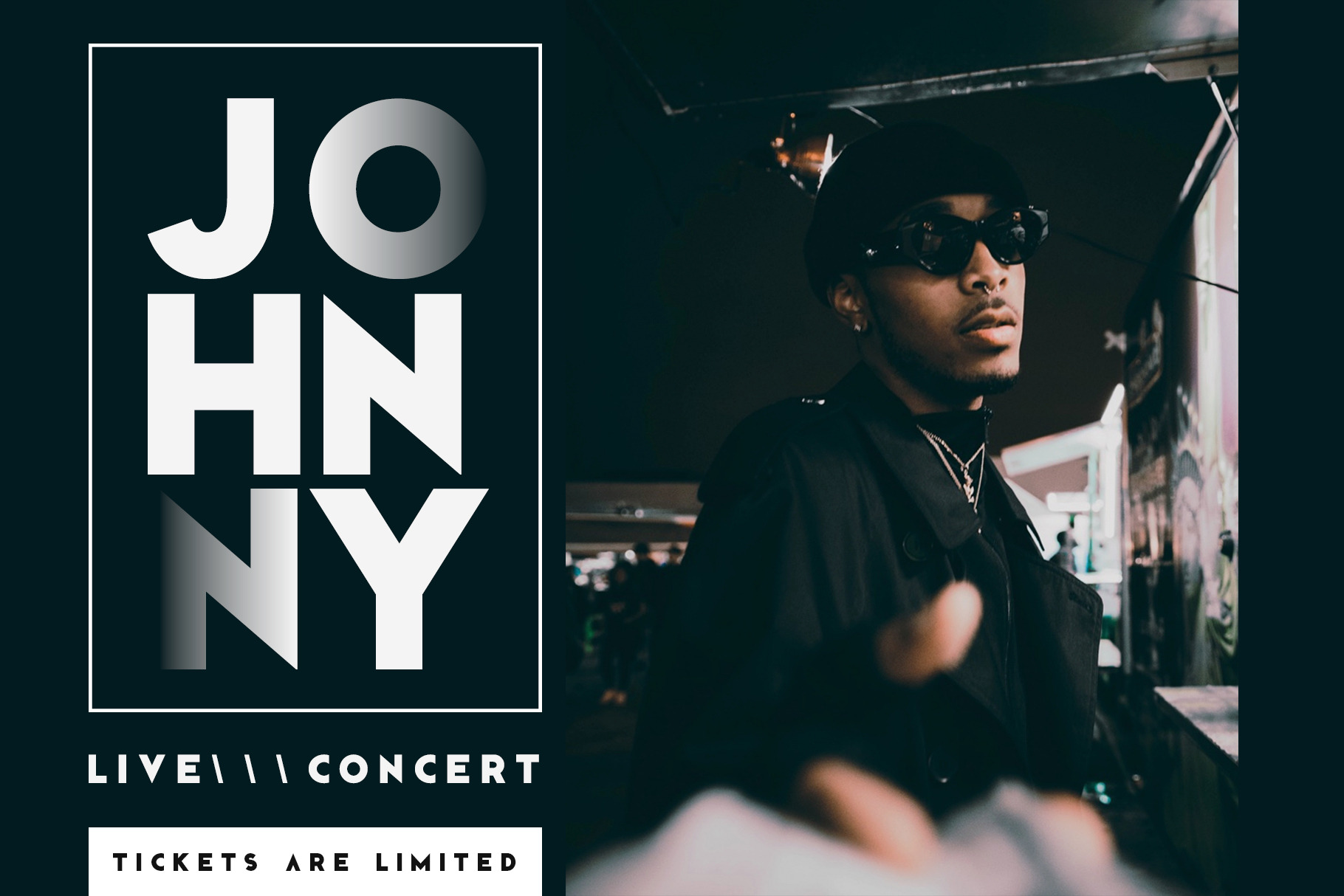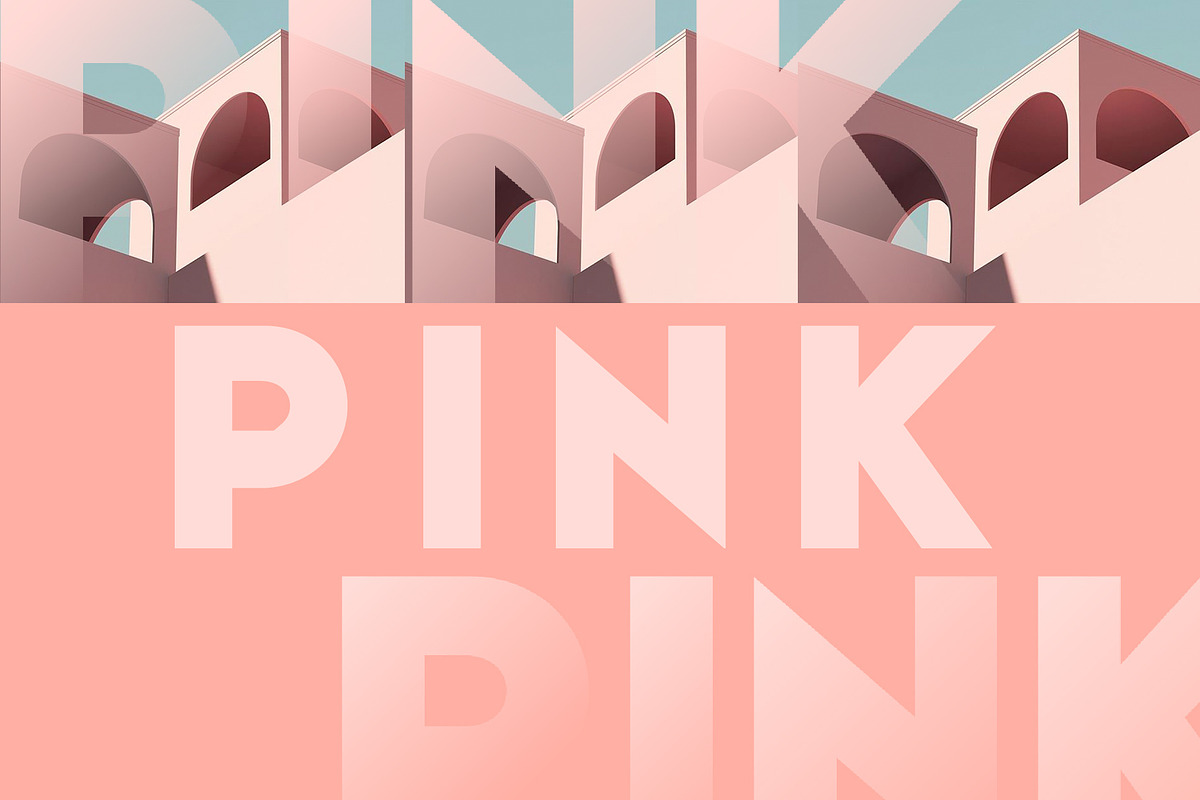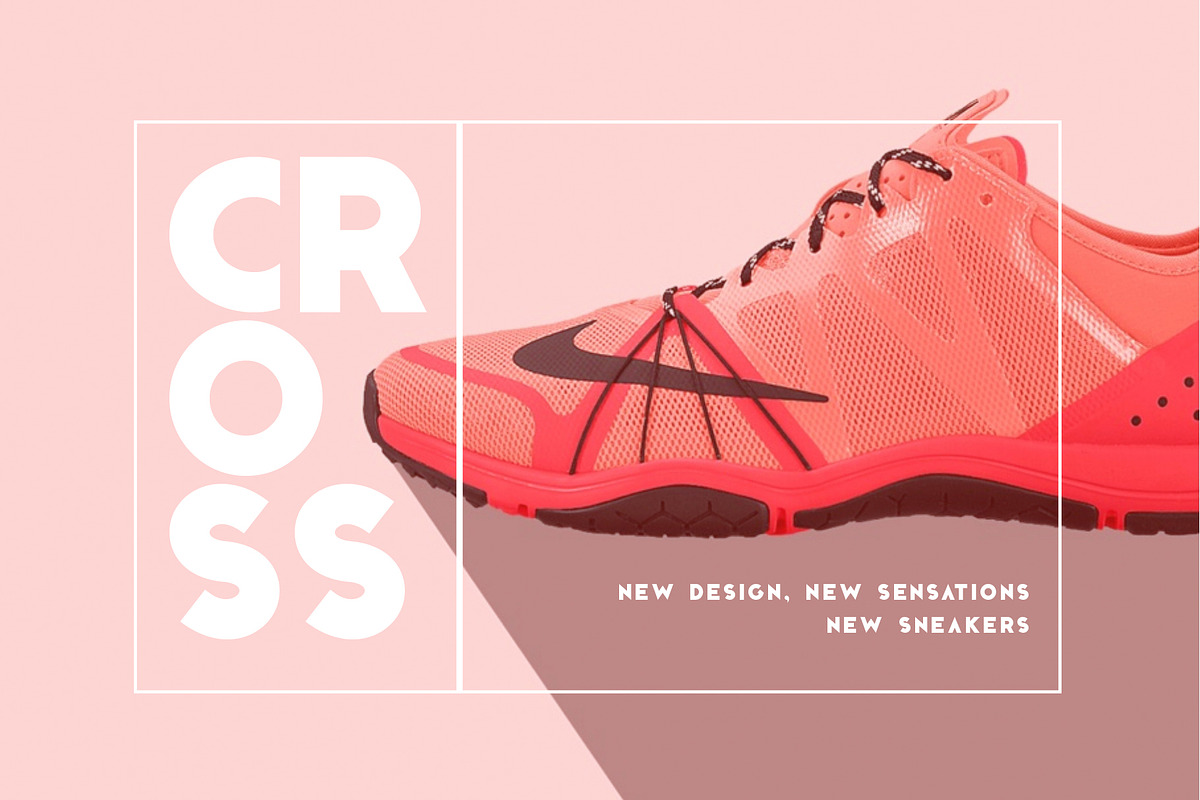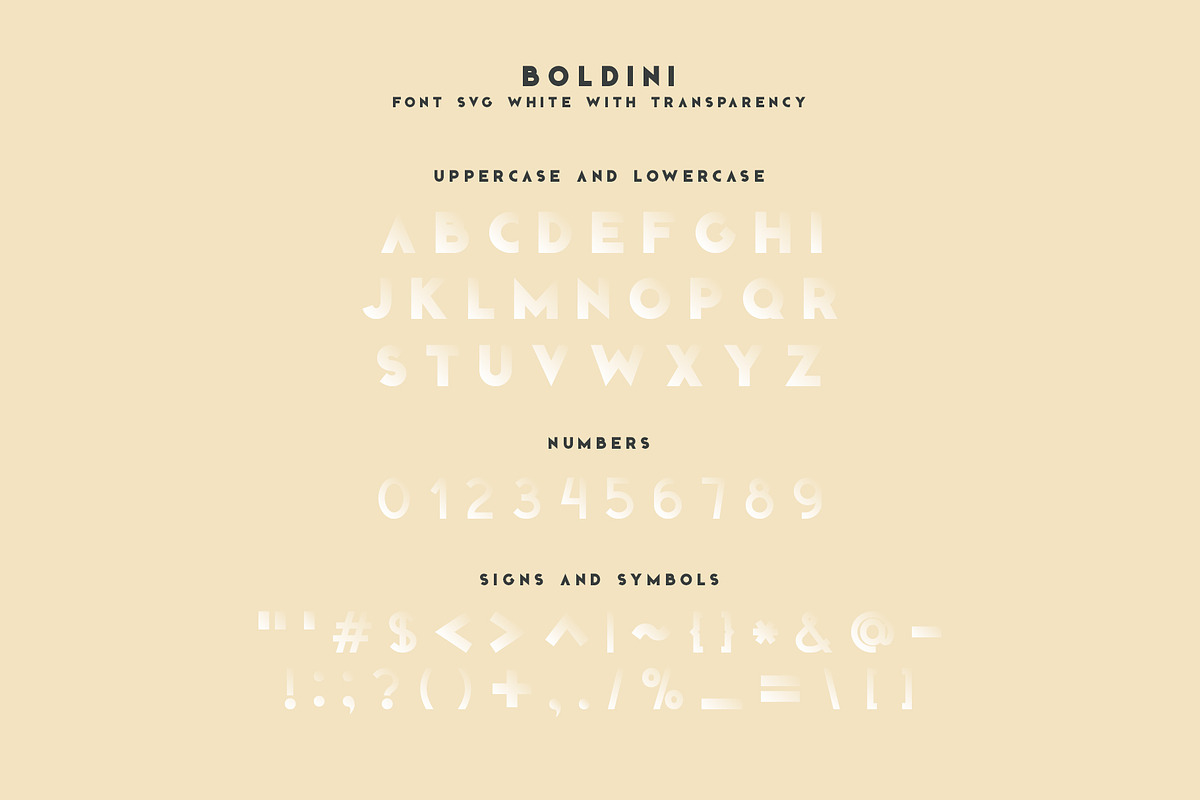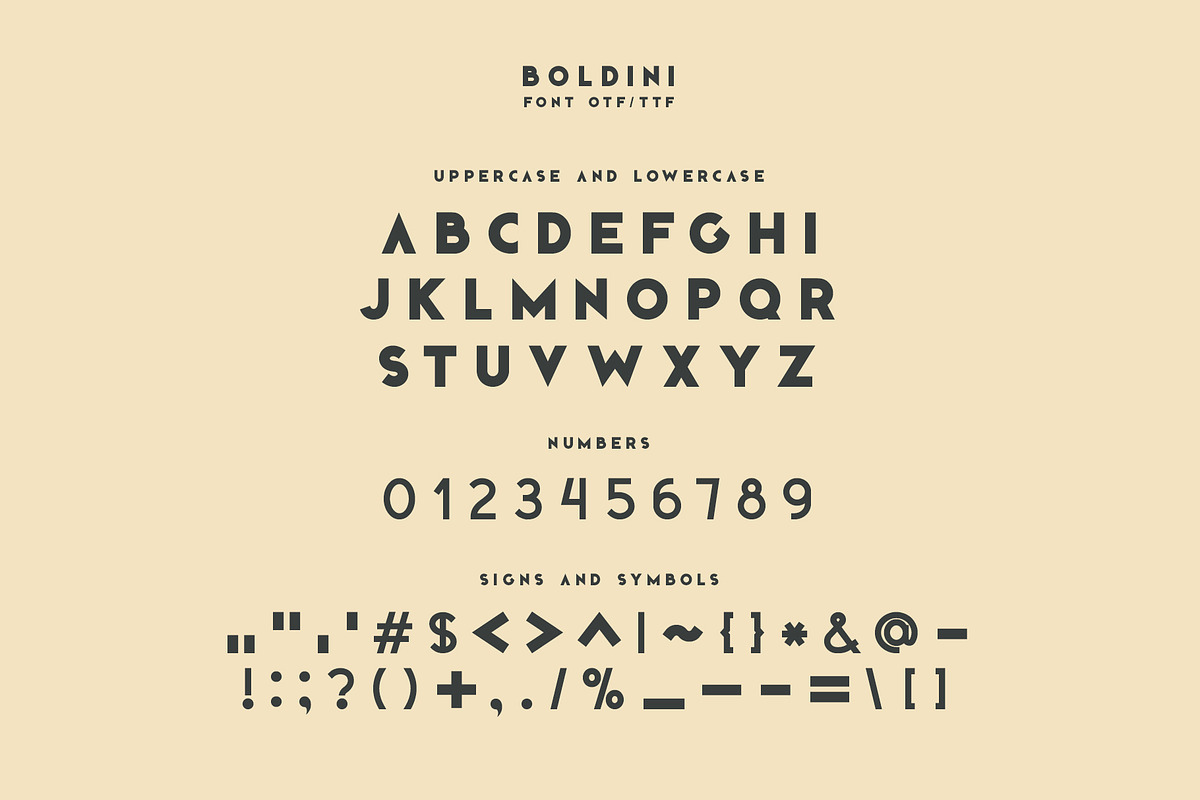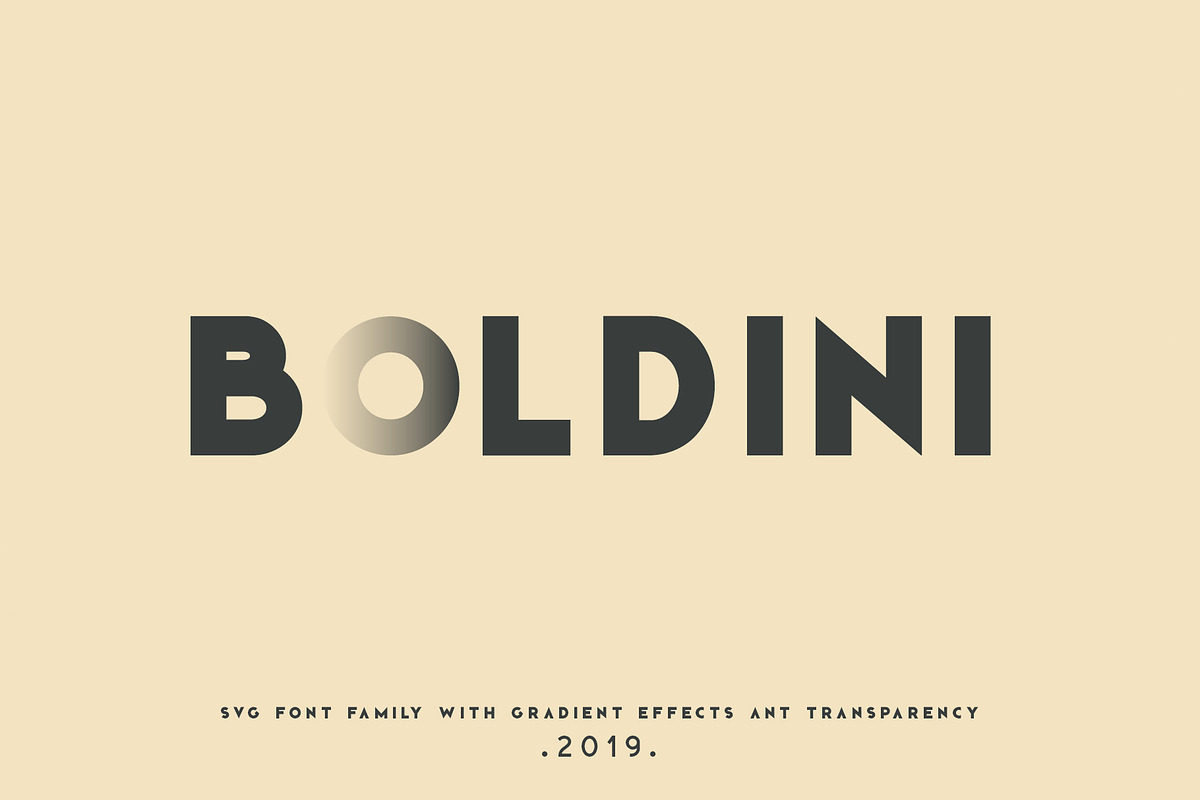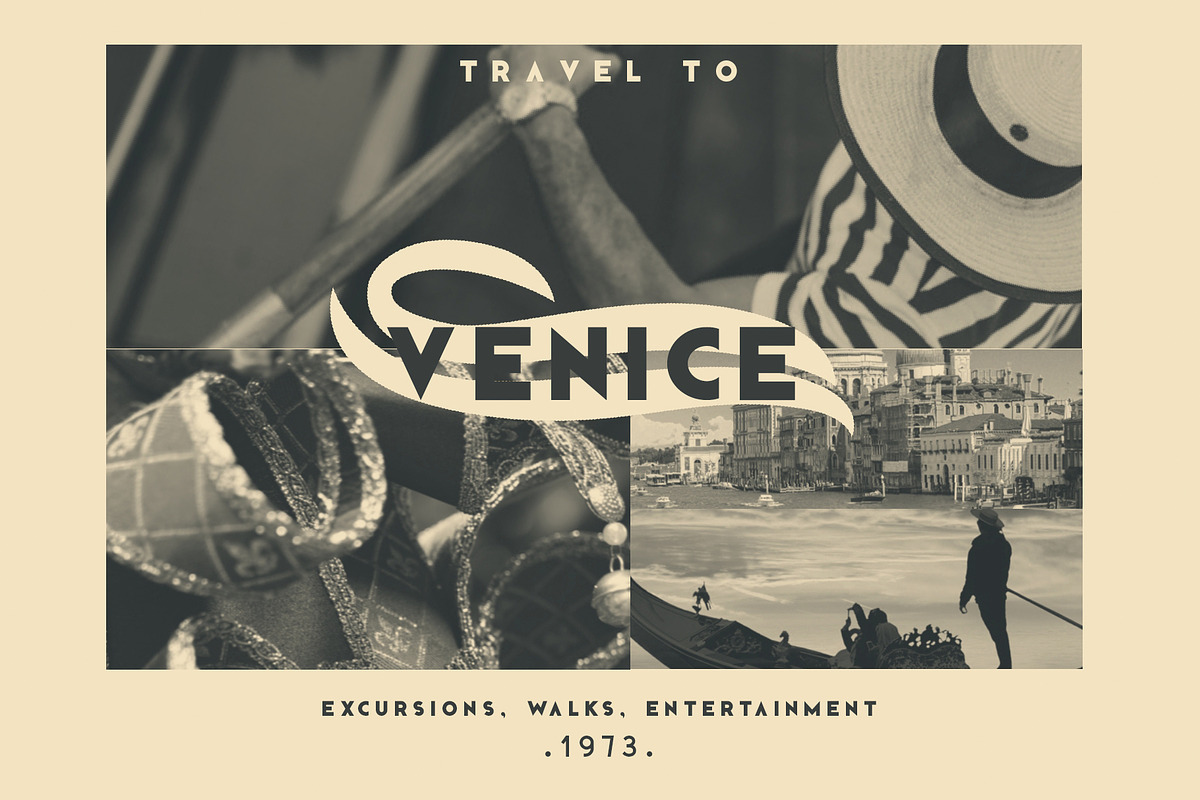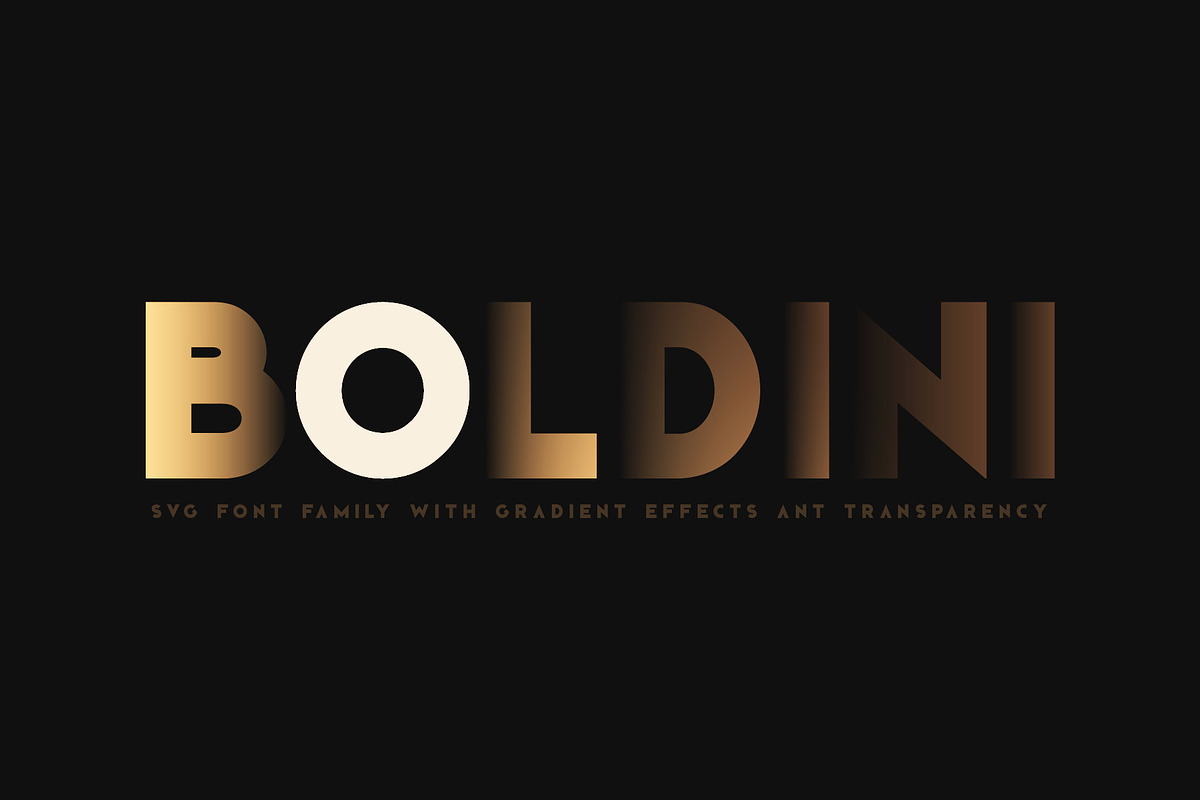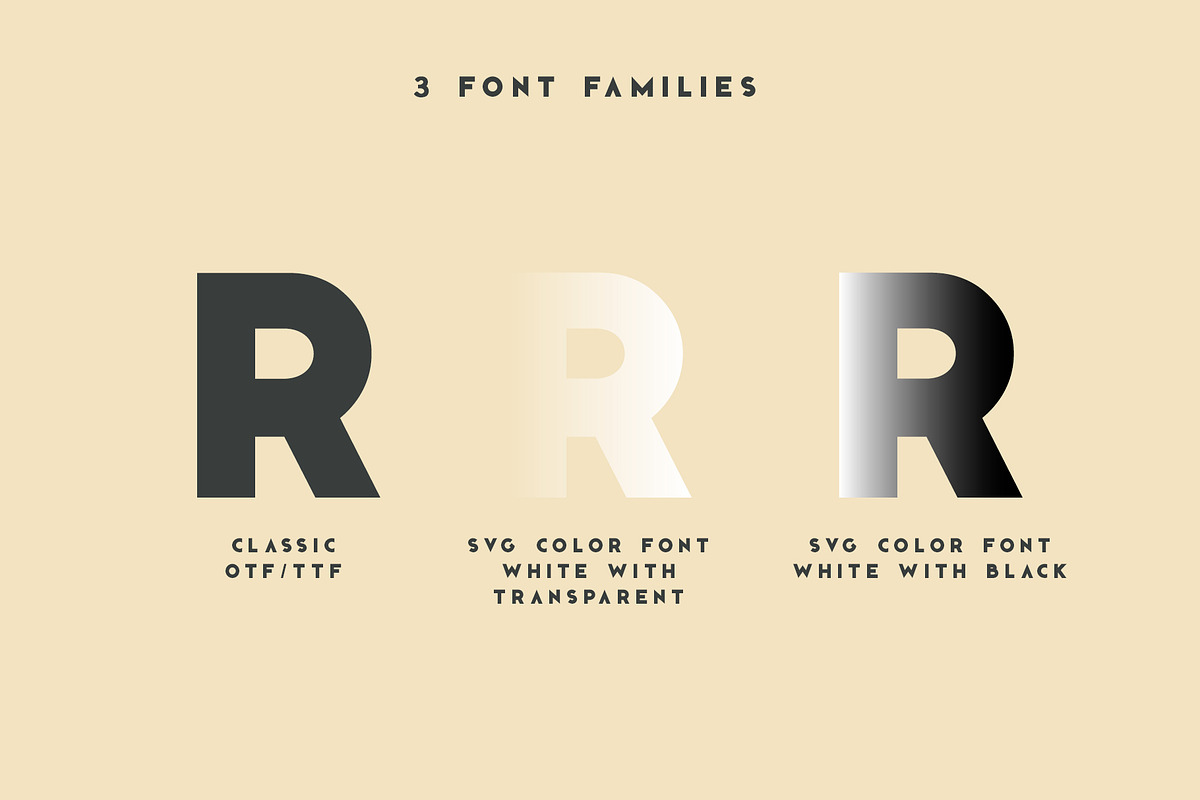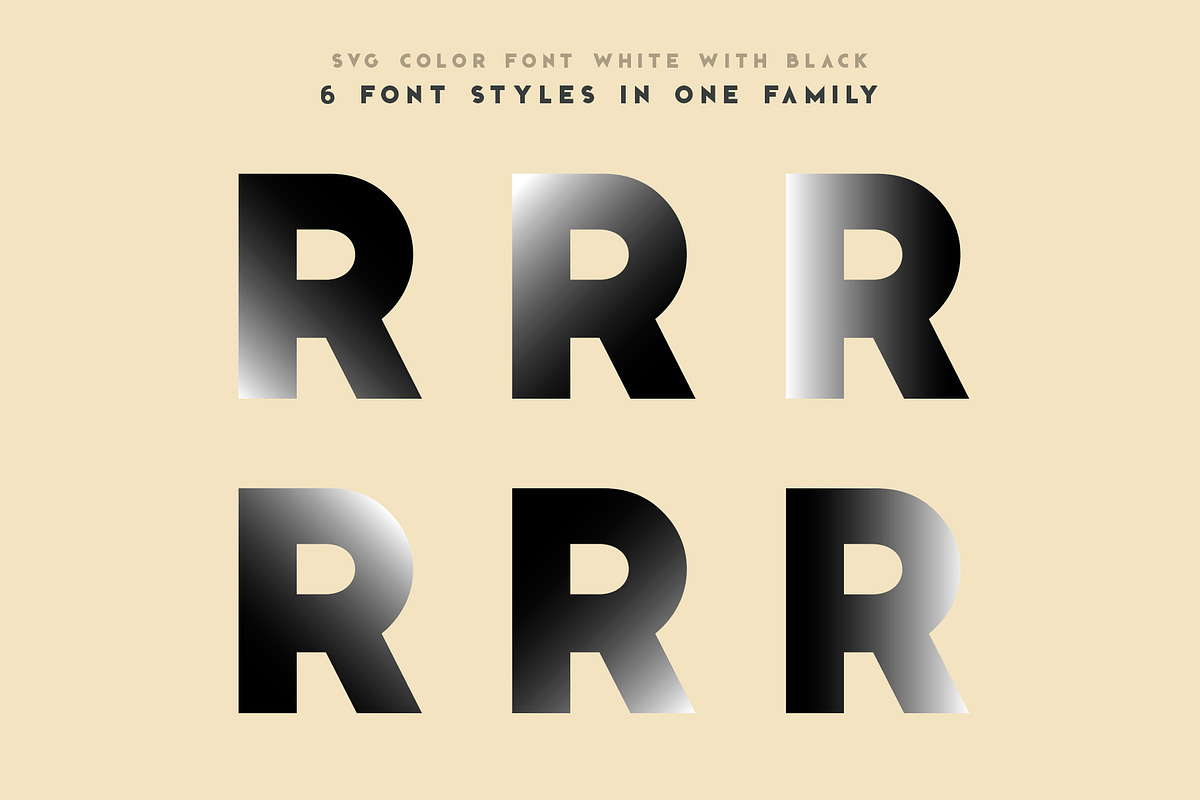
Boldini. SVG font family
Boldini. SVG font family + classic TTF/OTF fonts + styles for PS.
Boldini - original bold Sans Serif font with stylish letters. In the package you will find a universal classic OTF / TTF font and newfangled unique SVG color fonts with gradients and transparency. Letters of the font are perfectly combined with each other. Quickly create cool headers without spending a lot of time decorating words. Combine the classic letters TTF with gradient letters SVG, thereby making accents in designs. 3 font families allow you to be original.
UPPERCASE letters
Numbers & basic Punctuation
Sans Serif Typeface
Ideal geometric forms